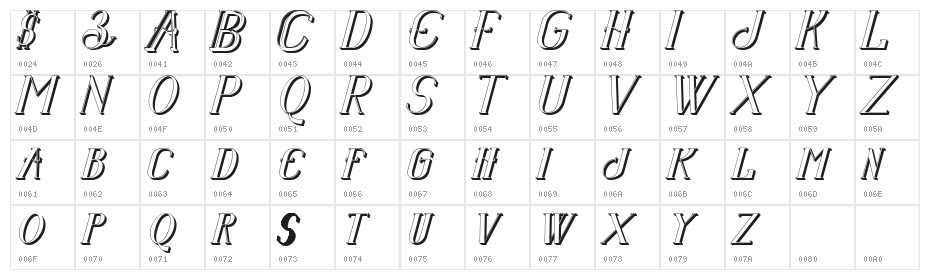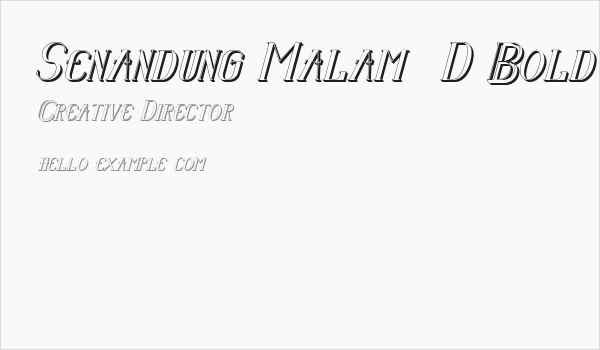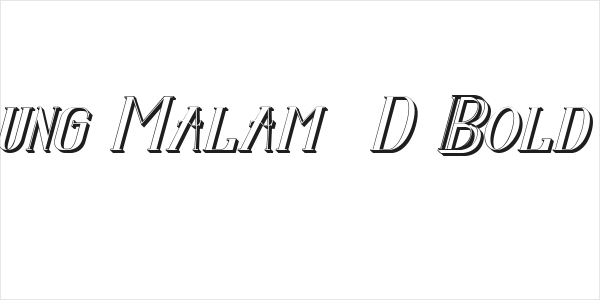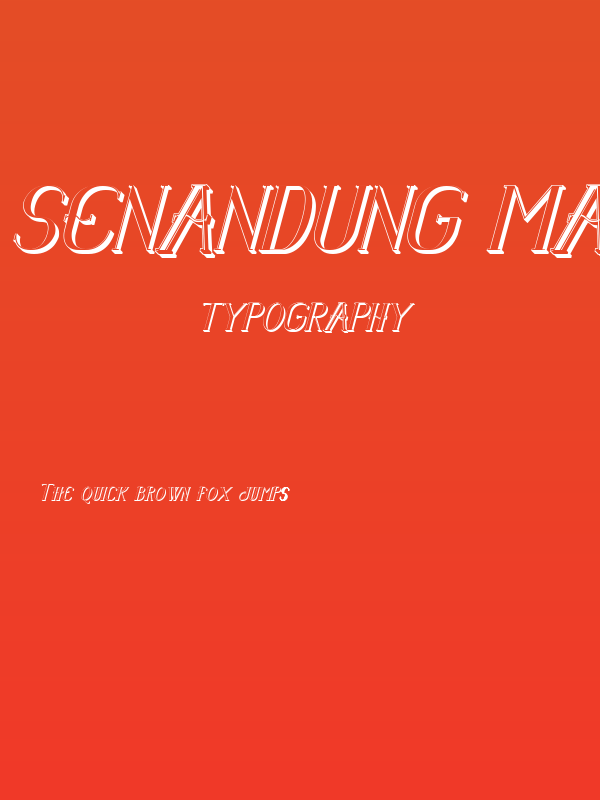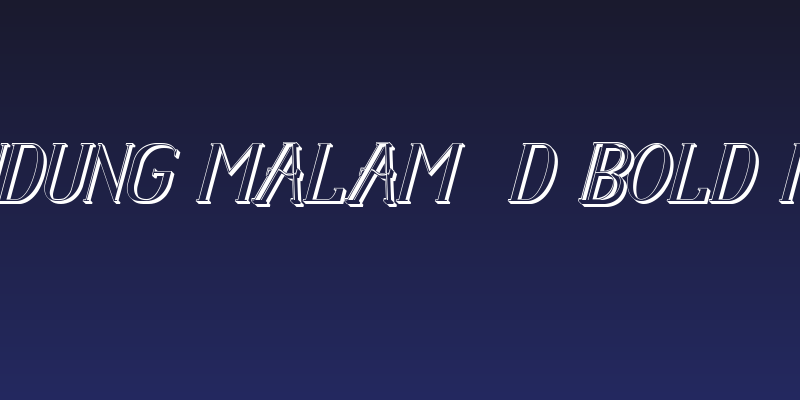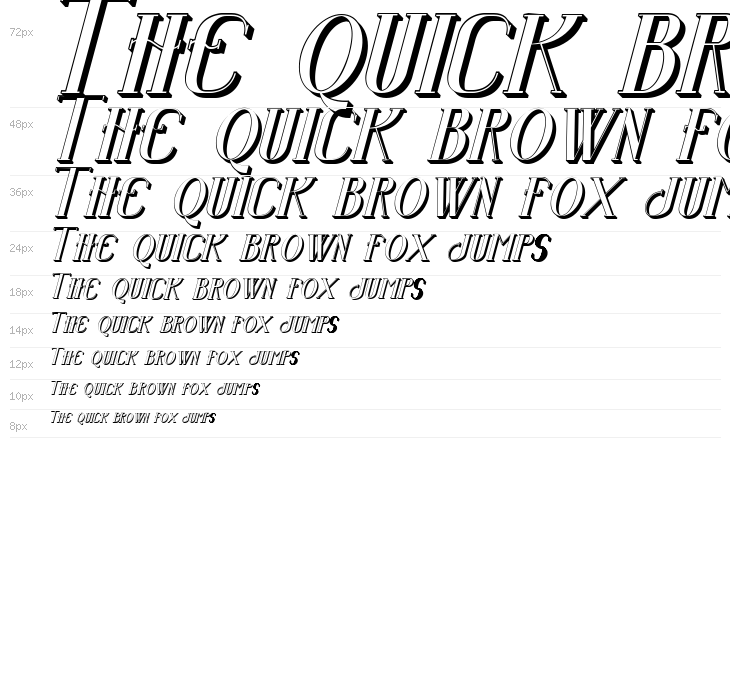
Senandung Malam 3D Bold Italic Font
Senandung Malam 3D Bold Italic Description
This font features a bold and italicized style with a distinct 3D effect, giving it a dynamic and eye-catching appearance. The uppercase letters are designed with a strong, angular structure, while the italic slant adds a sense of motion and elegance. The 3D shadowing enhances the depth and dimensionality, making each character stand out prominently. The font maintains a consistent weight throughout, ensuring readability while adding a decorative flair. The spacing between characters is moderate, allowing for clear legibility without compromising the bold aesthetic. This font is ideal for projects that require a striking and modern look, such as headlines, posters, or branding materials.